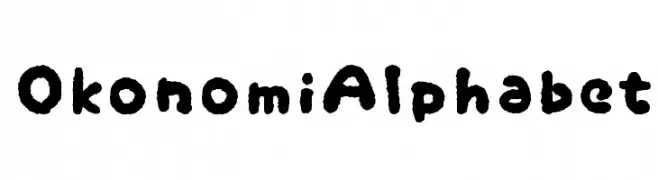
A bold, geometric font with angular, industrial letterforms.
A pixelated, monospaced font with a retro digital aesthetic.
A bold, geometric font with a futuristic and angular design.
A playful, interconnected font with bold strokes and a modern, artistic style.
A tall, narrow, and bold font with tight spacing and a modern aesthetic.
A bold, condensed, and modern geometric font ideal for headlines.
A playful, bold font with rounded, hand-drawn strokes.
A bold, geometric font with clean lines and a modern aesthetic.